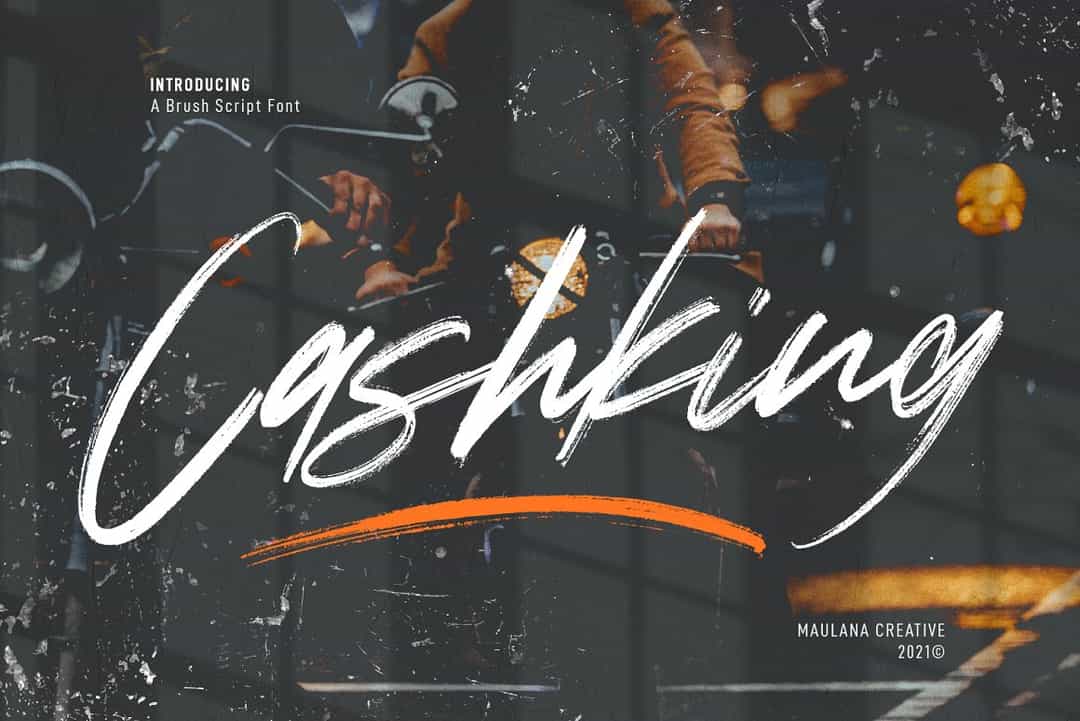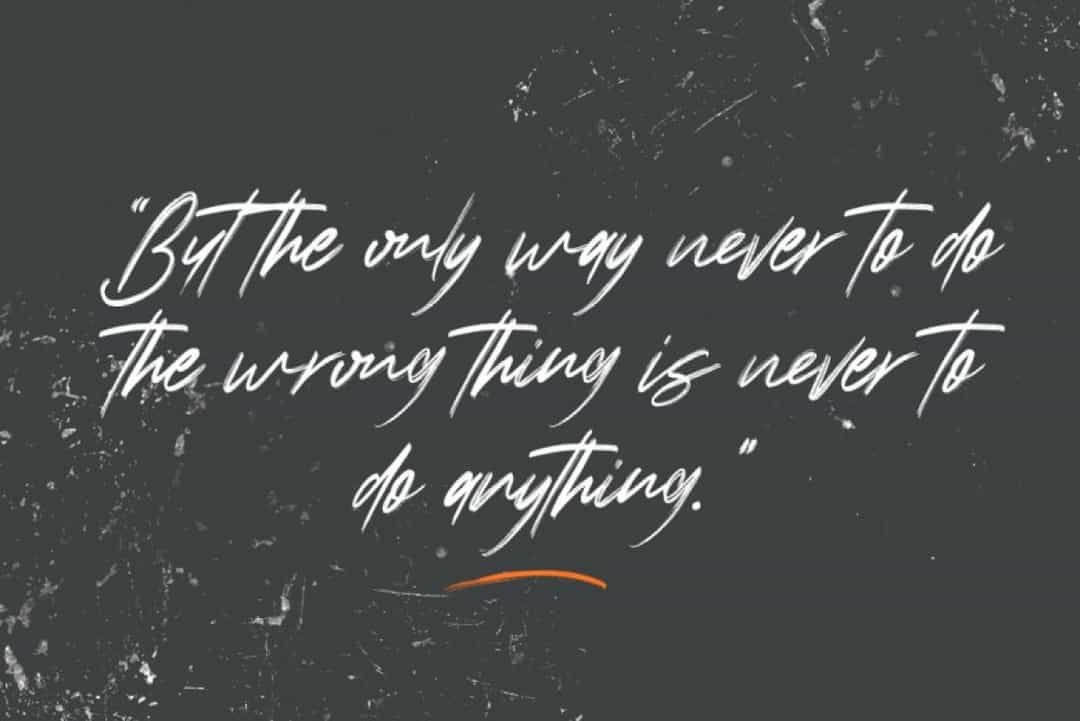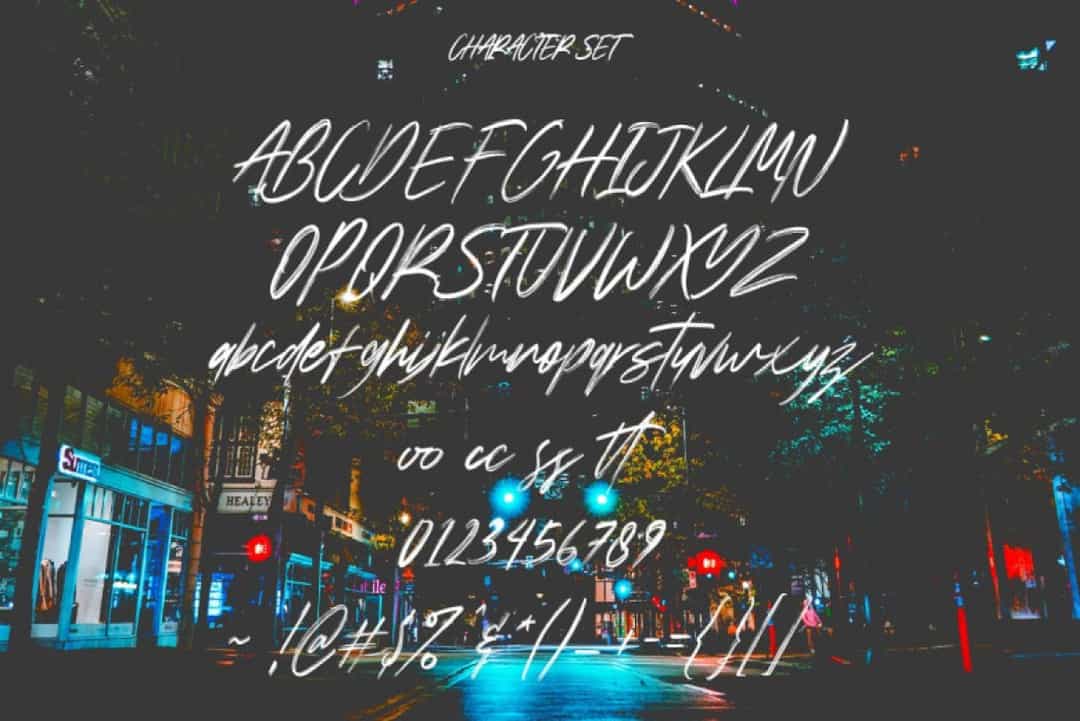
Discover Cashking Font, part of the Brush collection—a versatile and unique font perfect for adding a personal touch to your projects. Download it for free and enjoy crafting designs with style, from invitations to social media posts. This font is available exclusively for personal use, giving you the freedom to create without limits. Unlock your creativity with Cashking Font today!
Cashking Script font is a stylish brush Script font featuring regular brush strokes, lively characters with ligatures, and an extra swash for an additional artistic task. Furthermore, Cashking supports over 100 languages!